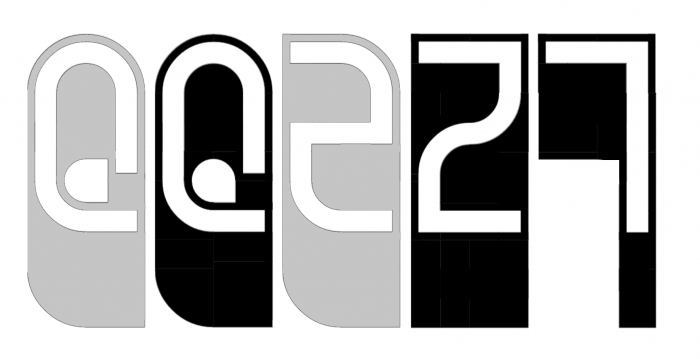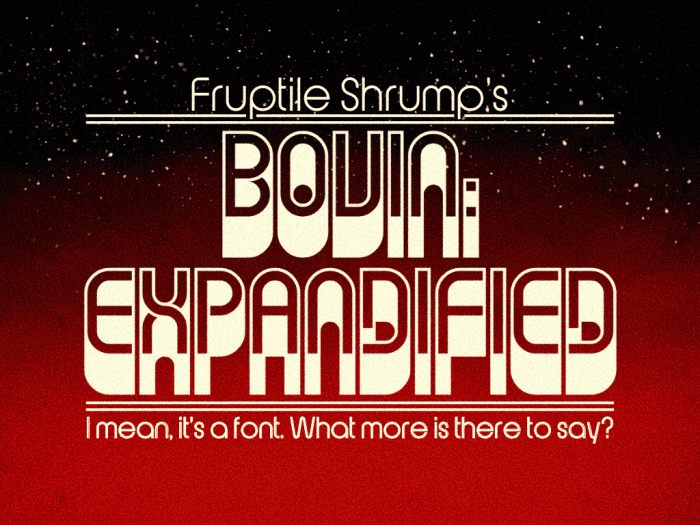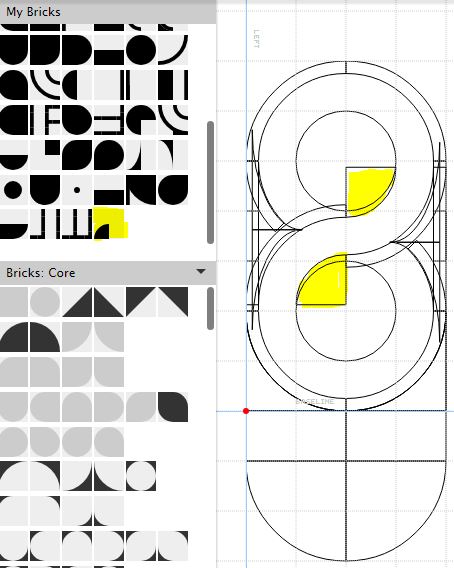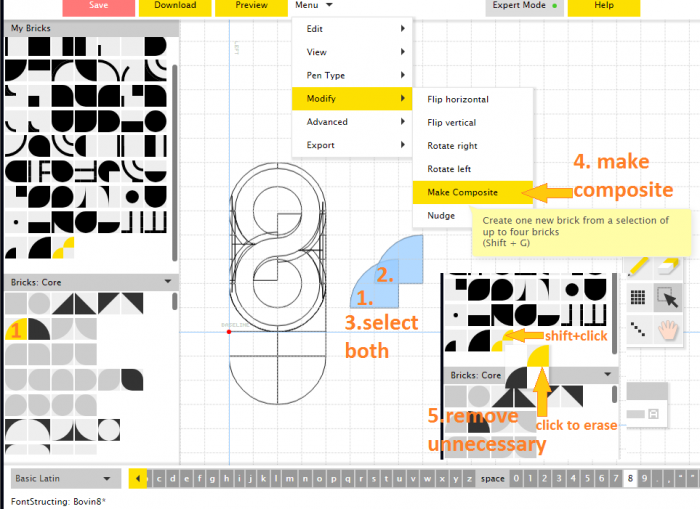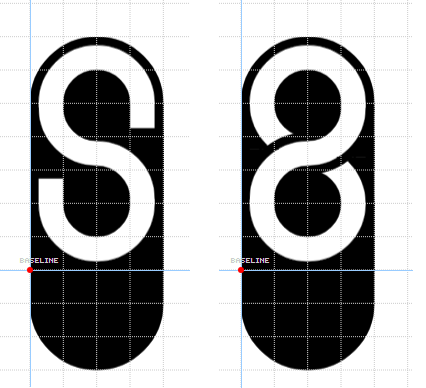
Great work! I added some suggestions for Q, Z, and 7. Hope you like them.
'Tis done. Never even noticed the thing with the Q! I might also release a version using the alternates so they're easier to type.
@Fruptile Shrump: Oops. Sorry for my recent comment on Bovin', I see you've corrected all the glyphs I pointed out... except for the "8". I didn't look at this font before writing the previous comment, my fault.
When I was already mentioned on the parent font page, but some fixes were applied here, I have an idea about the 8. What about little "cheat"? I nudged the arcs just 1/8
I'll certainly give it a try
Well, once I find out how to do that
If you did not, watch this tutorial video, pretty much useful "tricks" there, even how to make composite bricks:
At sign. There.